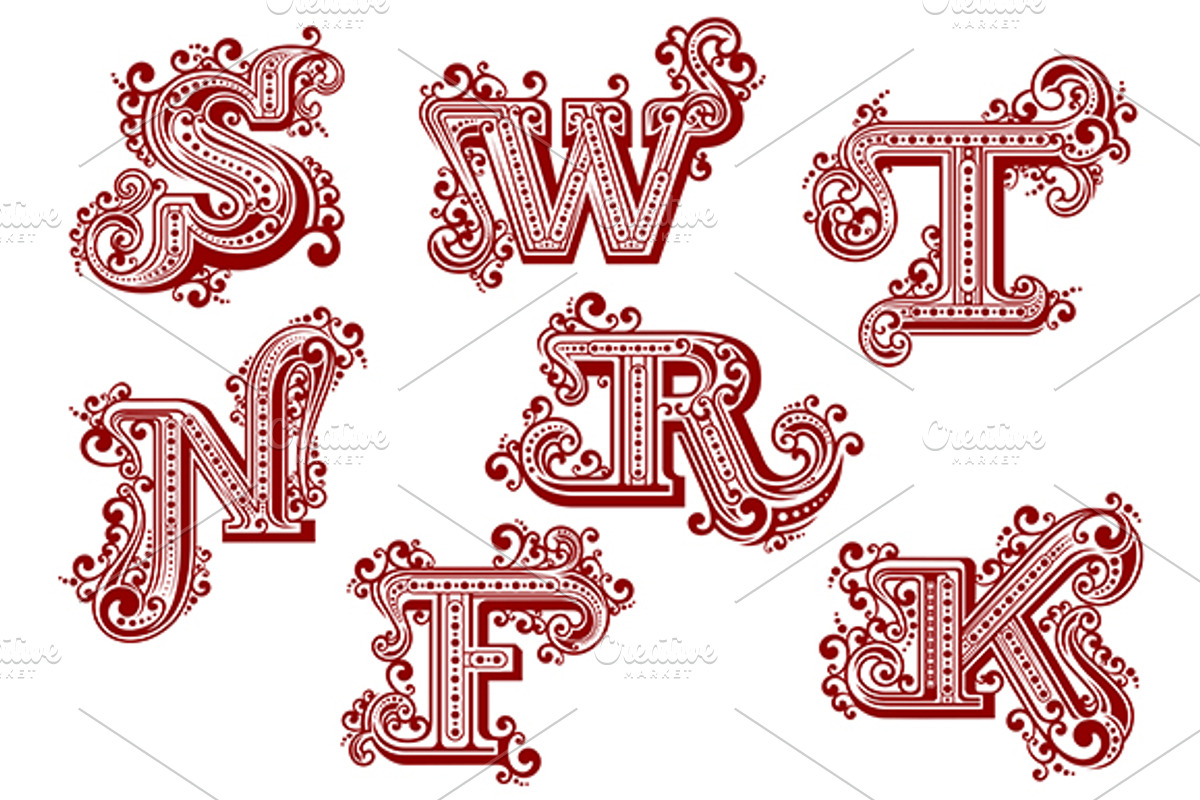
Font letters F, K, N, R, S, T, W
Font letters F, K, N, R, S, T, W by Vector Tradition is a font selected for branding, posters, packaging, typography.
- Elegant uppercase red letters in vintage swirly style ornated by twisted lines, curlicues and dots isolated on white background.
Font letters F, K, N, R, S, T, W by Vector Tradition fits naturally into Branding, posters, packaging, typography.